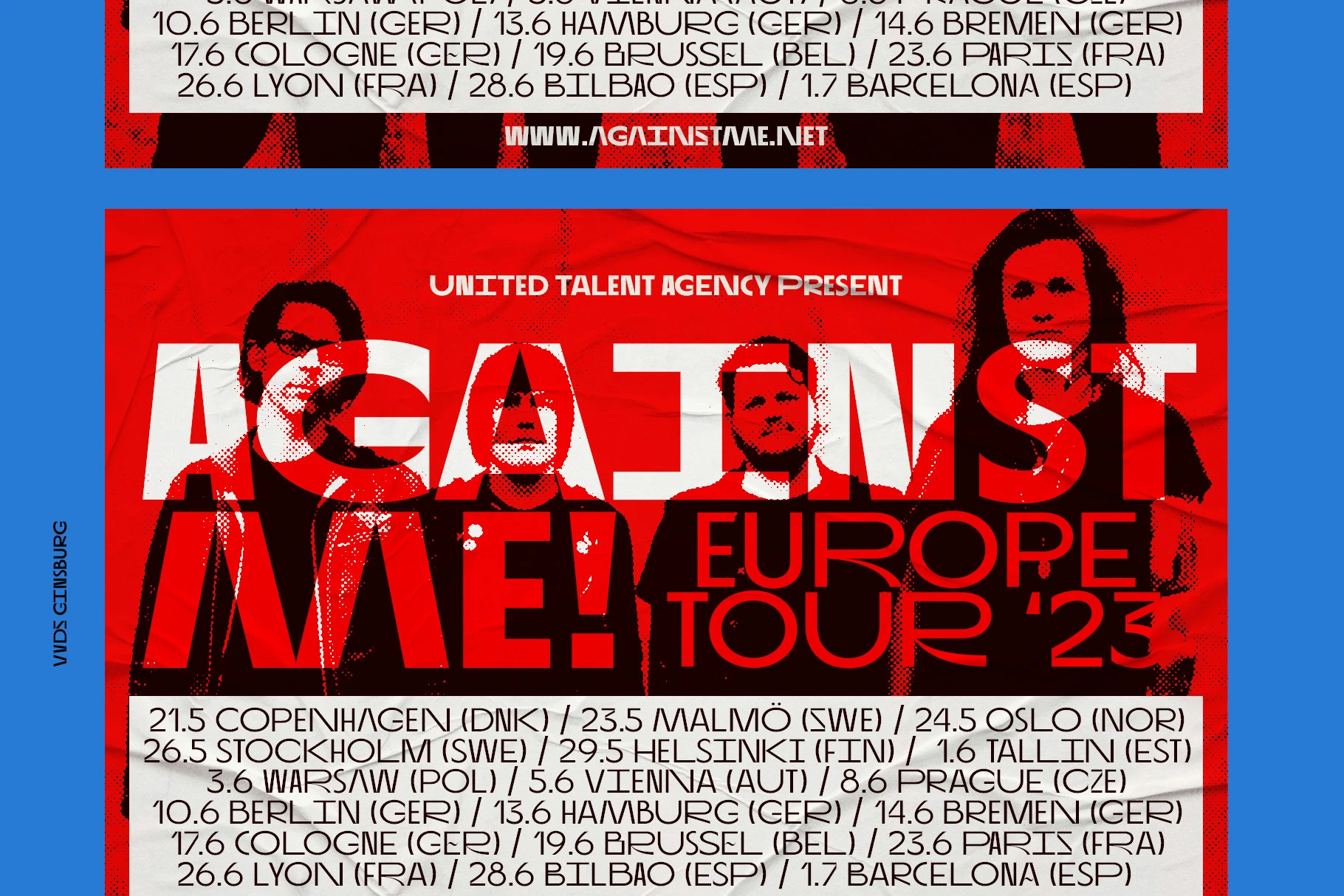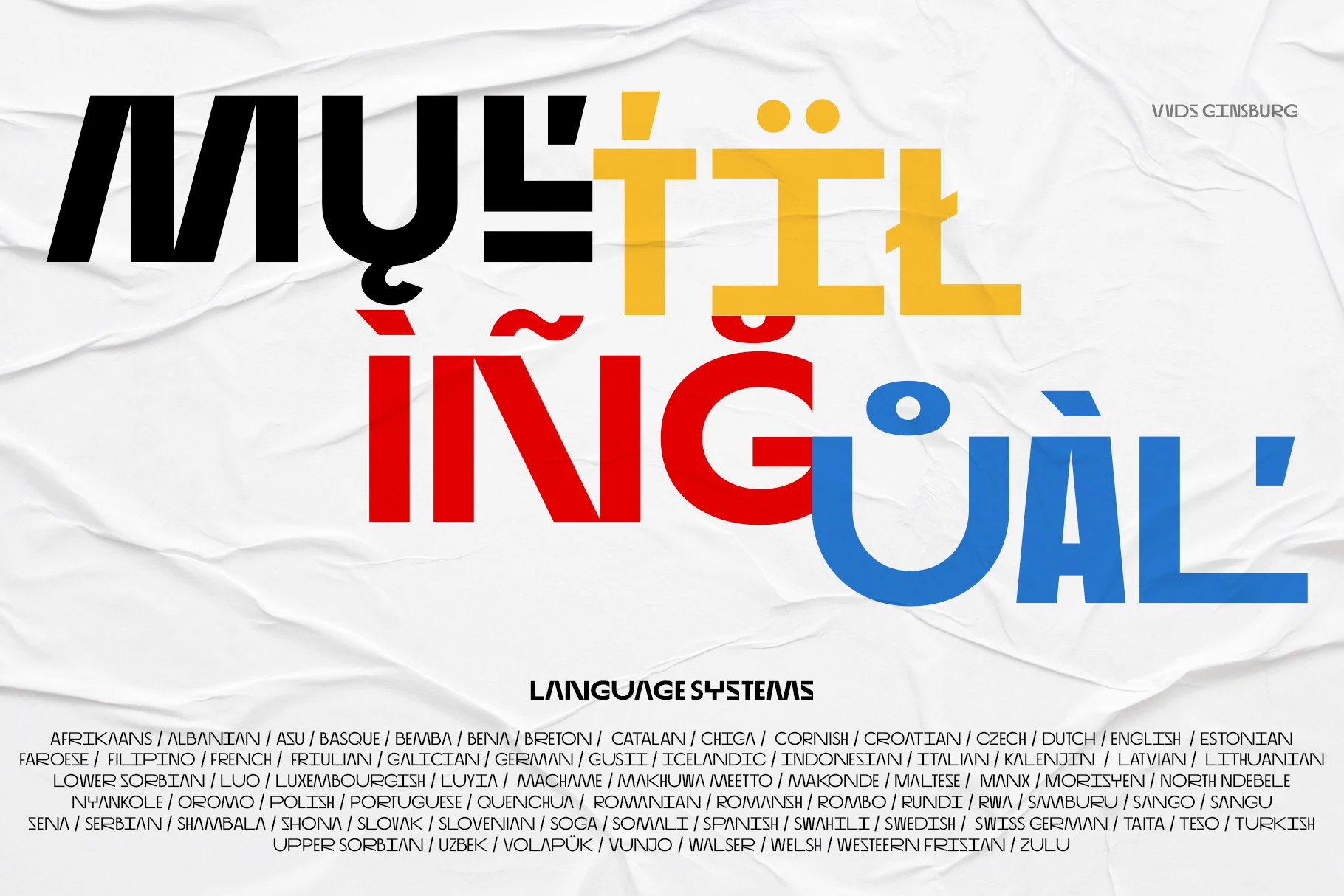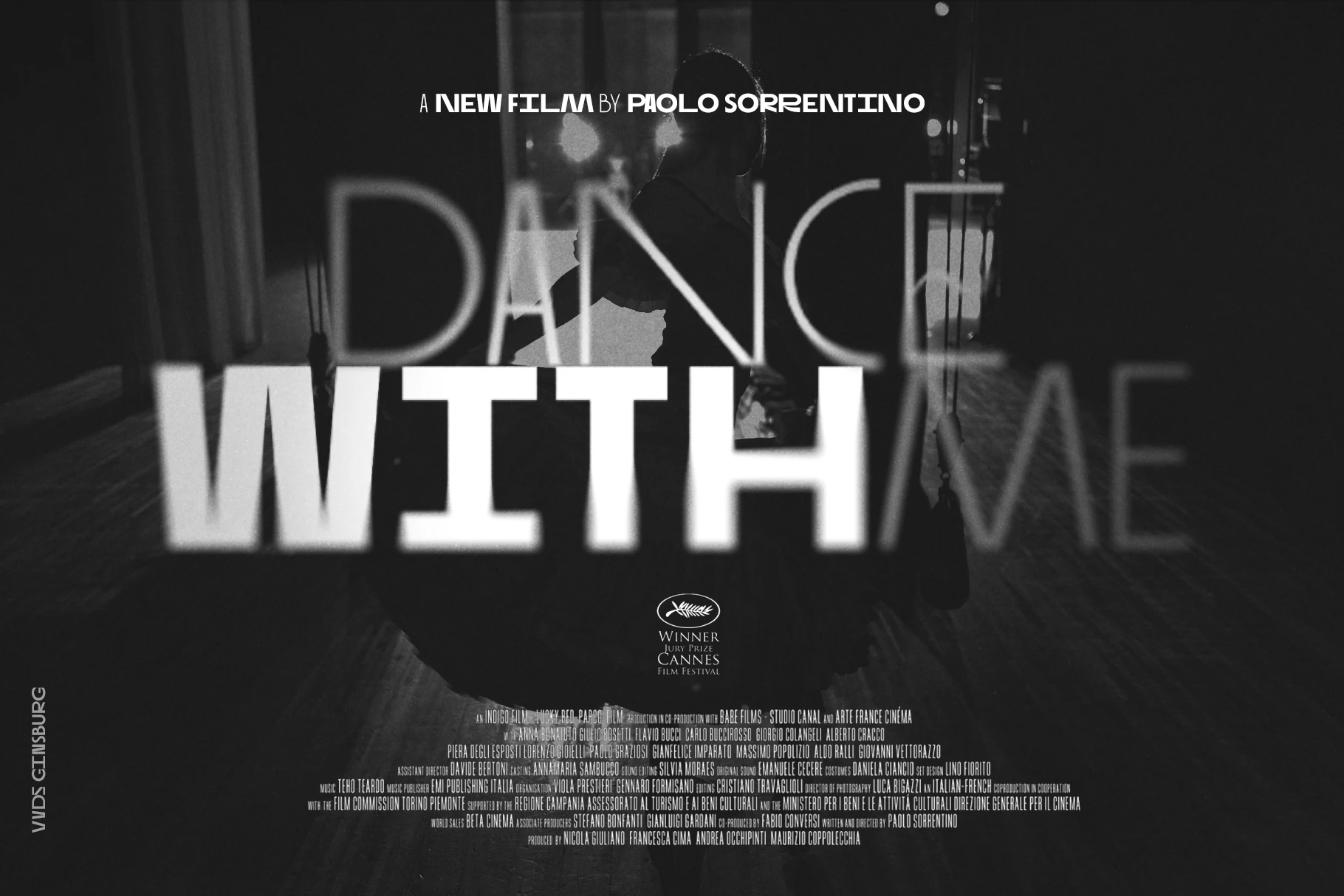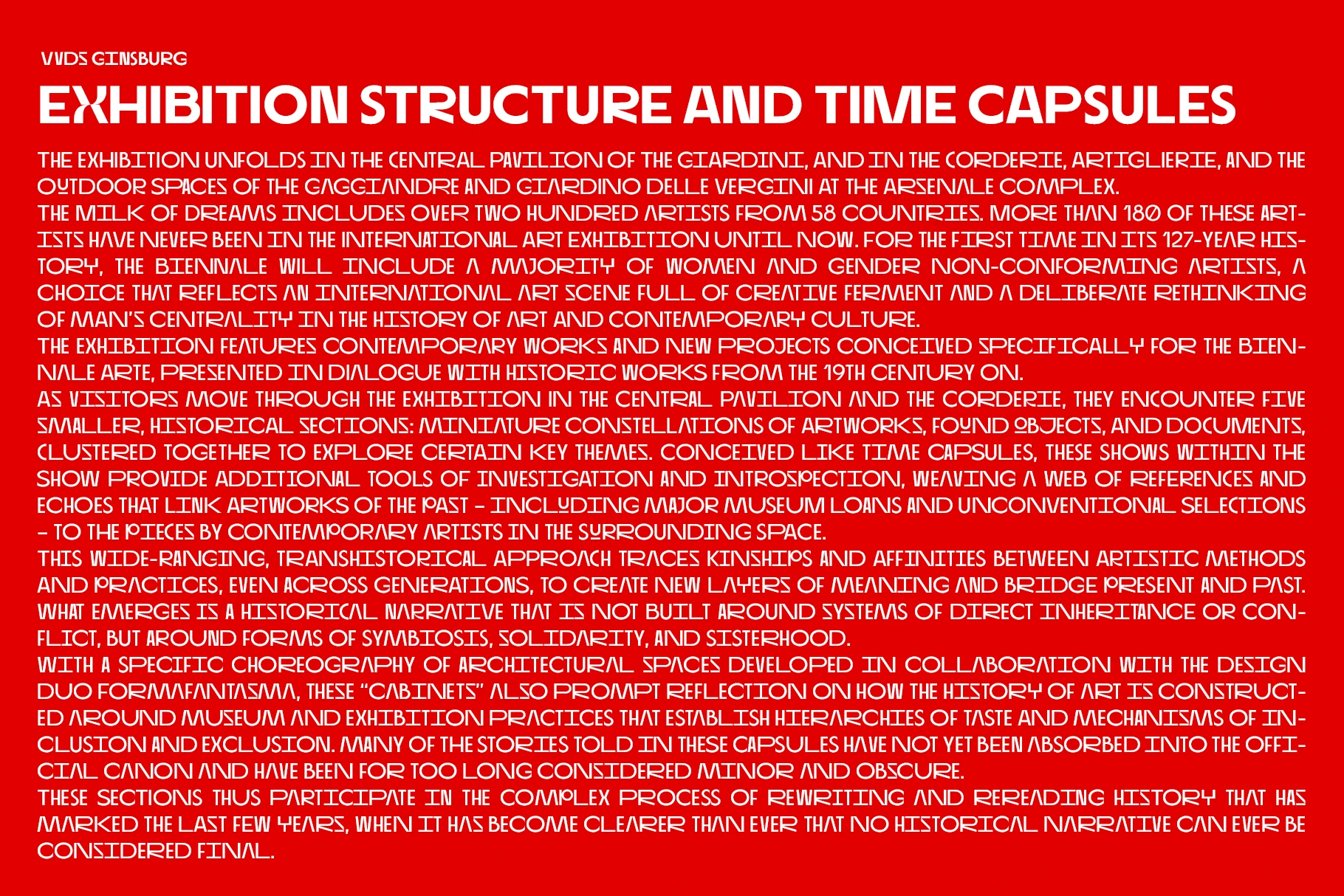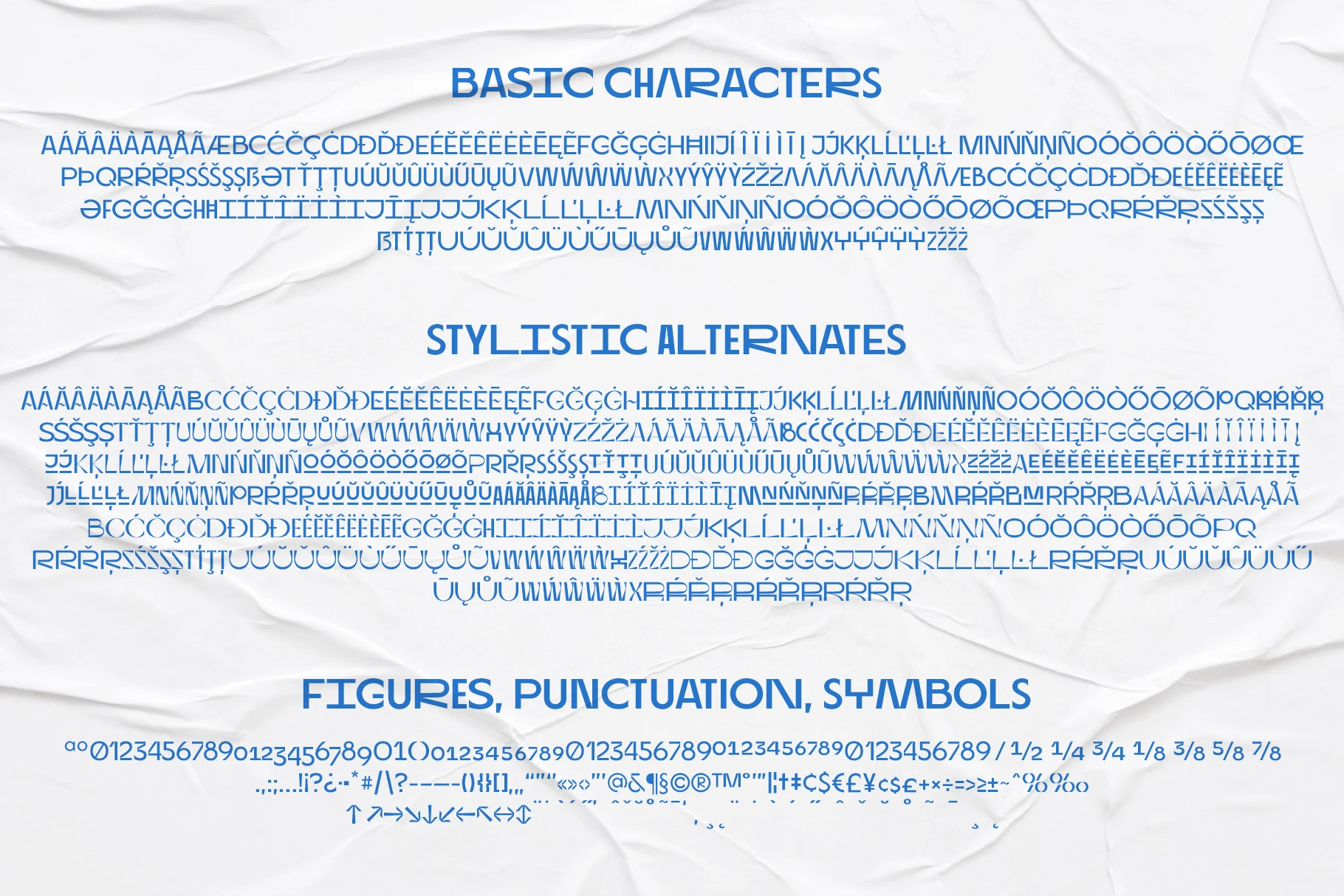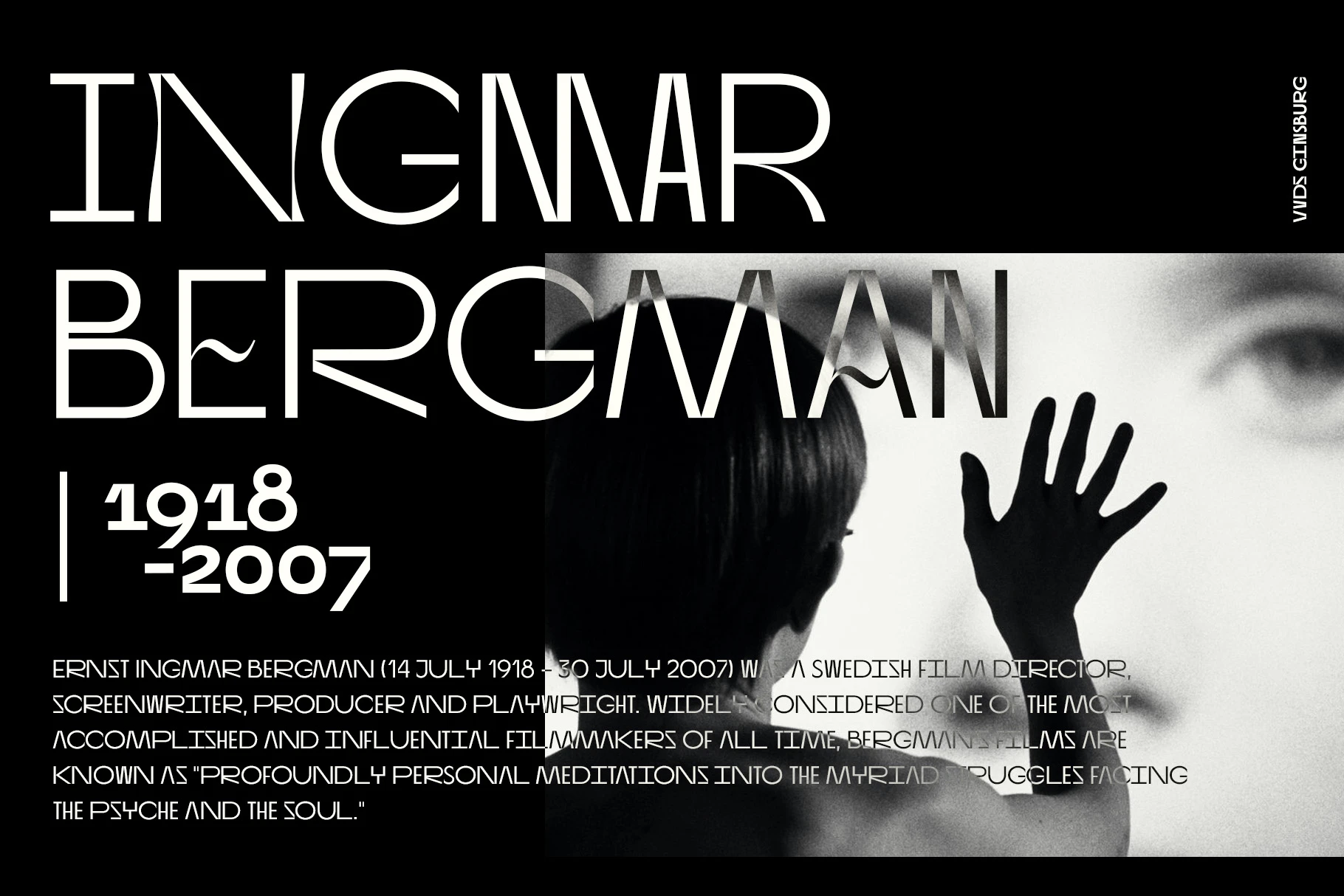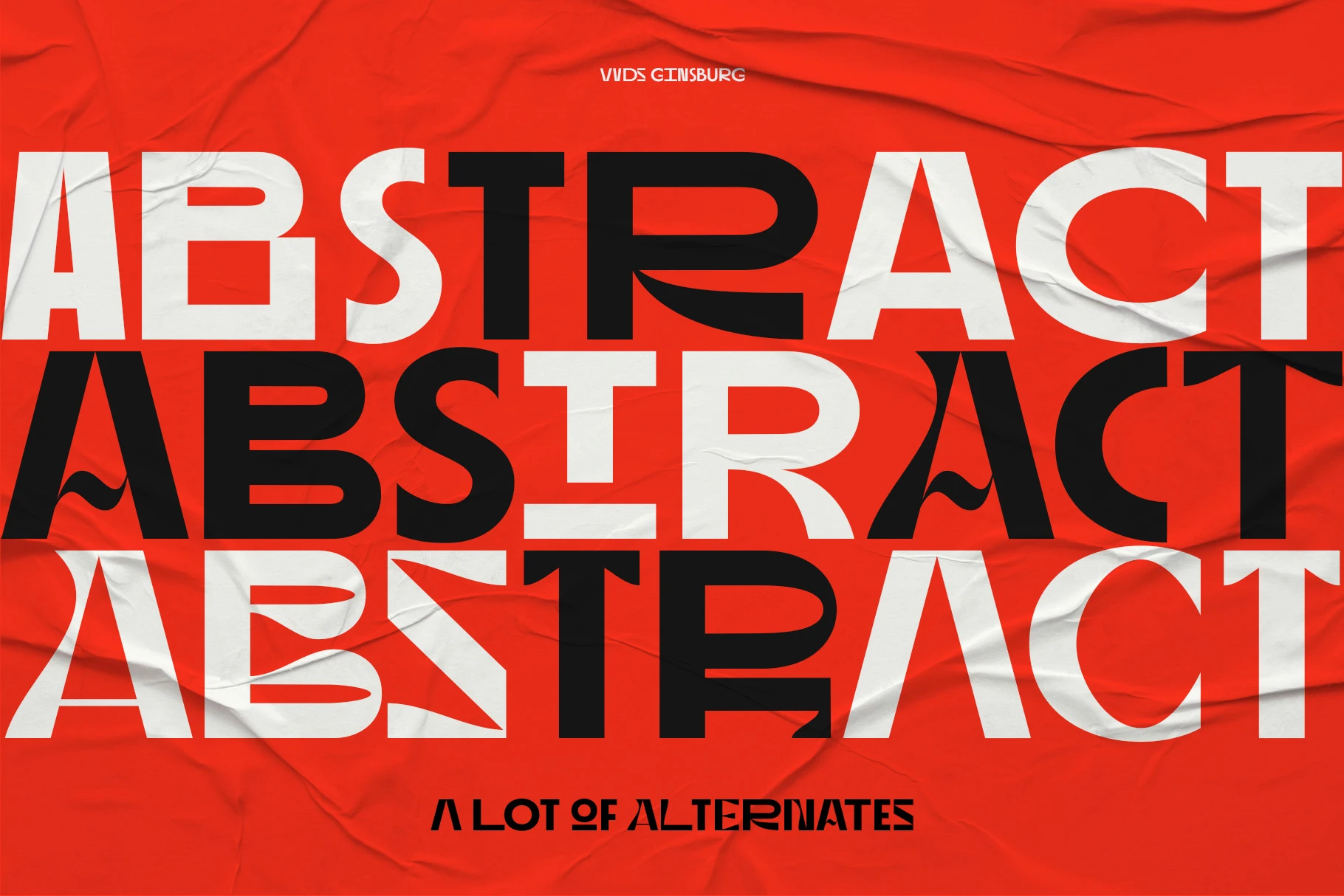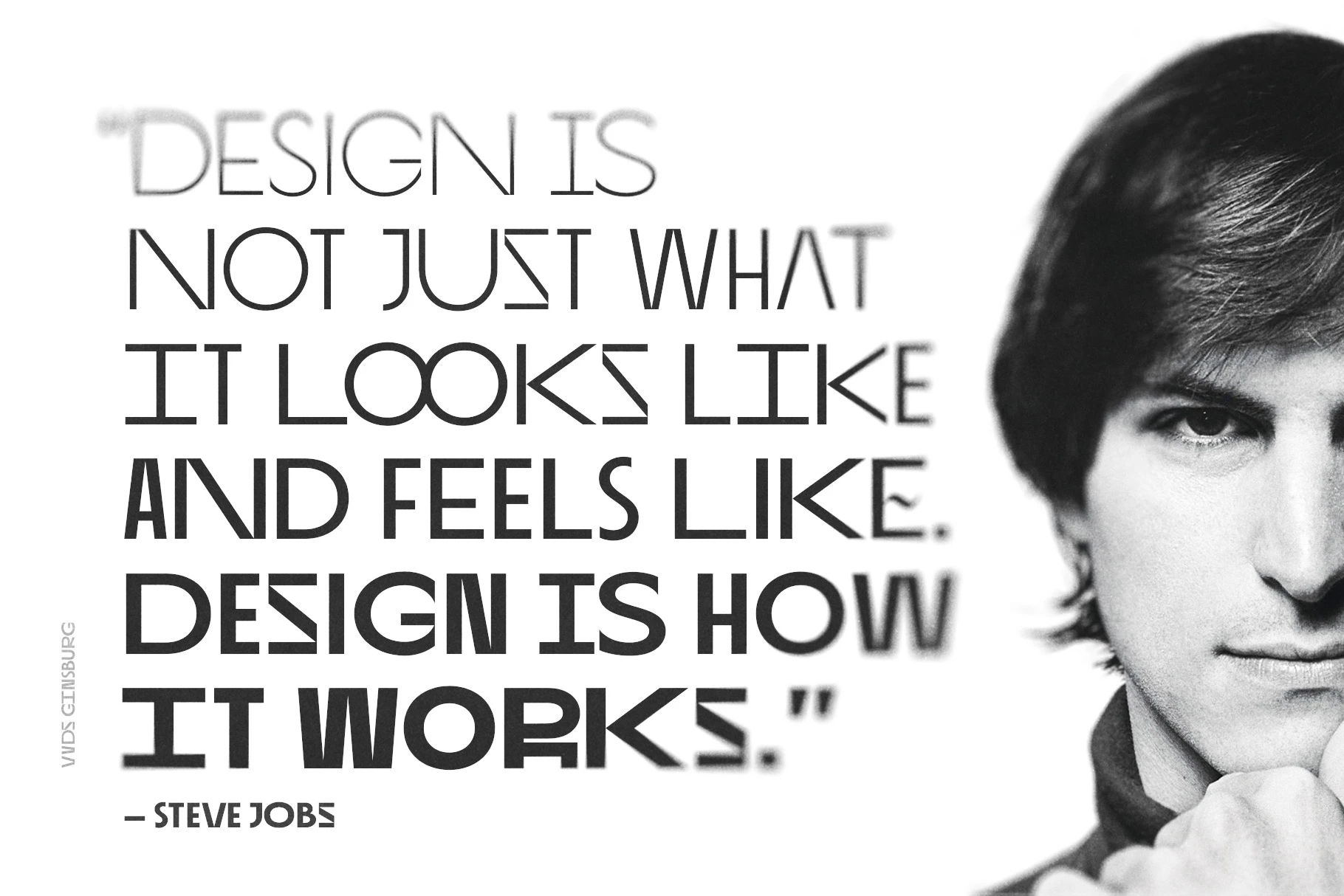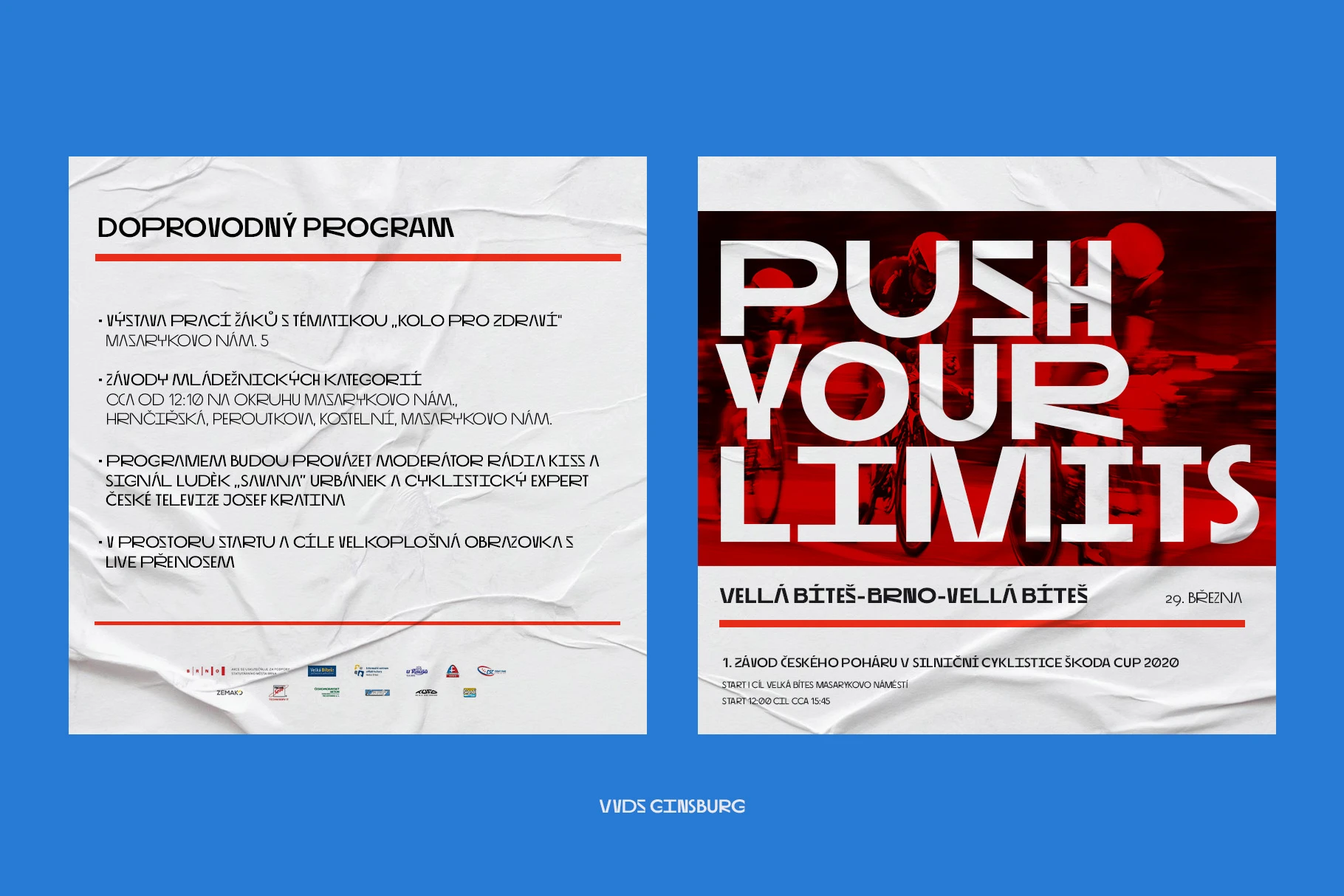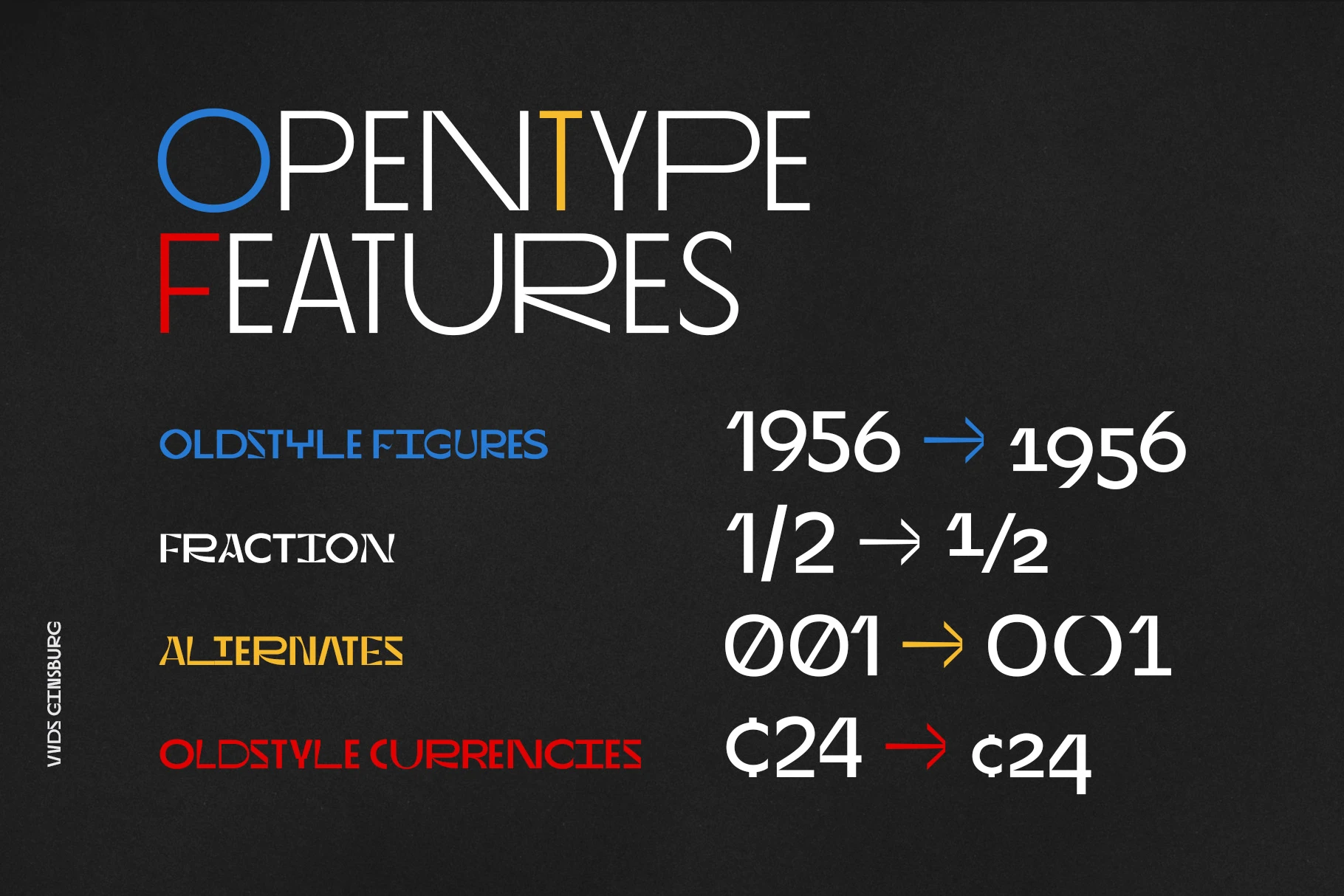
Ginsburg • 6 styles
Ginsburg is a modern all-caps display font family built on geometric shapes and abstract wavy lines. Inspired by the architectural work of Moses Ginsburg and the spirit of old-school constructivism. Offers a balance between structure and playfulness, with alternate characters for added expression. Well-suited for headers, logos, block text, and bold statements. Ideal for TV series titles, podcast covers, exhibition posters, or modern sports brochures. Designed to be flexible, eye-catching, and full of attitude.
• Fractions
• Lining Numerals
• Old Style Numerals
• Stylistic Sets
• Subscript
• Superscript